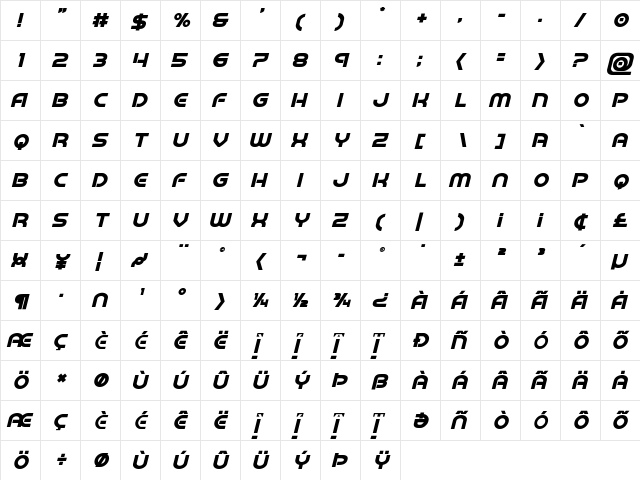
Barcade No Bar Bold Italic Bold Italic
Design Context for Barcade No Bar Bold Italic Typeface
Barcade No Bar Bold Italic is a composed and adaptable typeface that performs quietly and consistently across a wide range of design contexts. The slanted form adds forward momentum and visual energy. The heavy weight commands attention and anchors typographic hierarchies.
Pro Tip: Use Barcade No Bar Bold Italic for emphasis, pull quotes, and subheadings where its slanted energy can add rhythm to the layout.